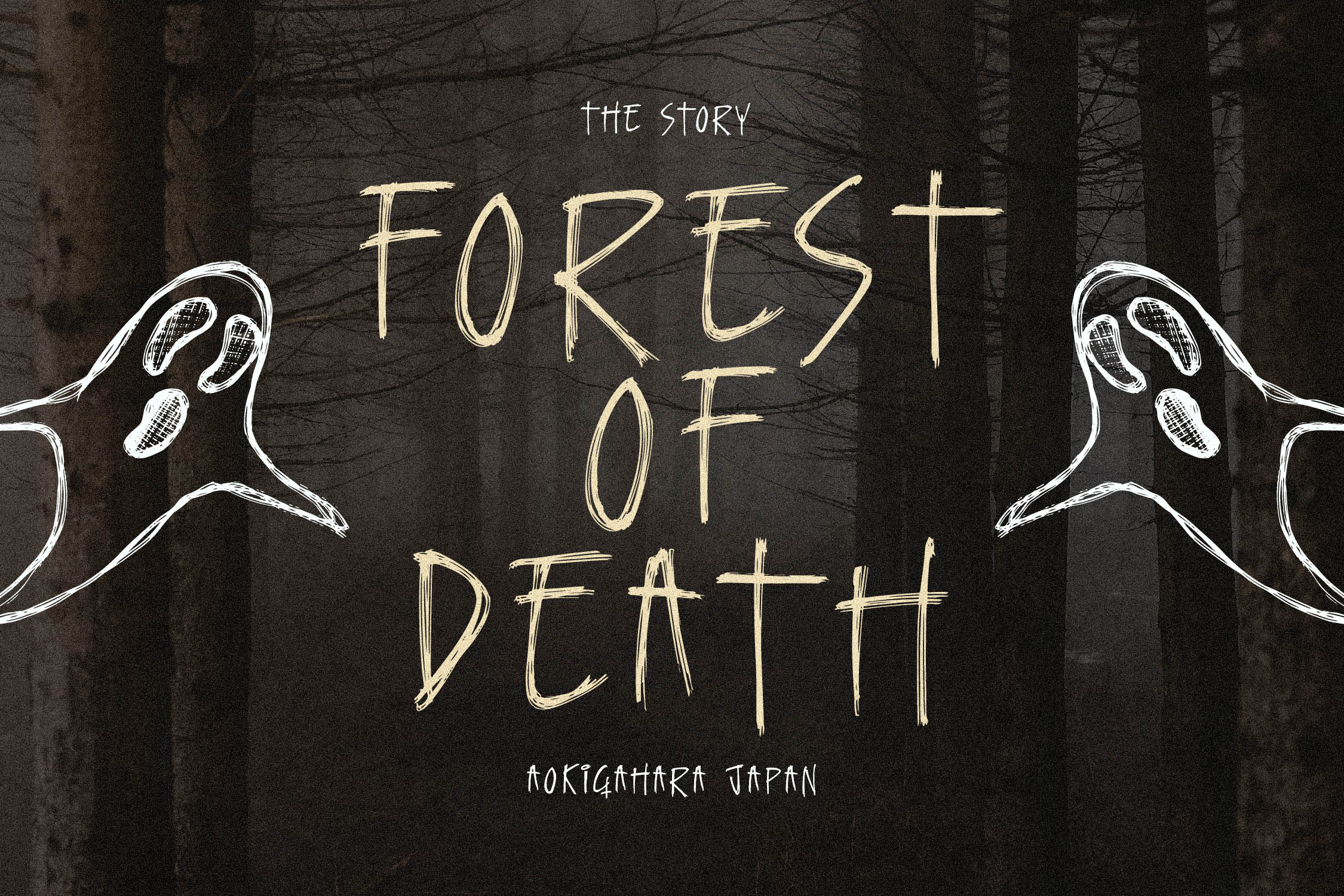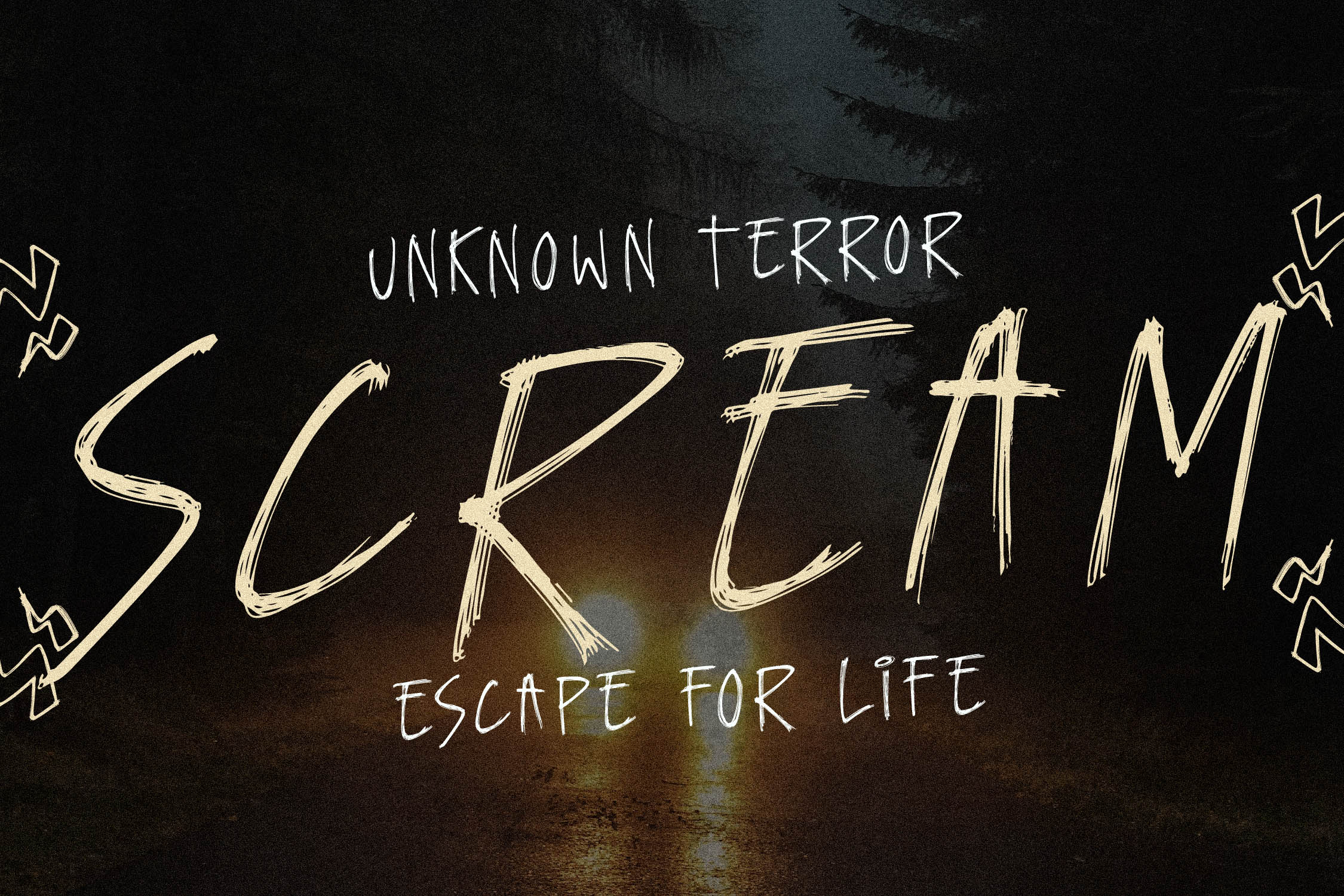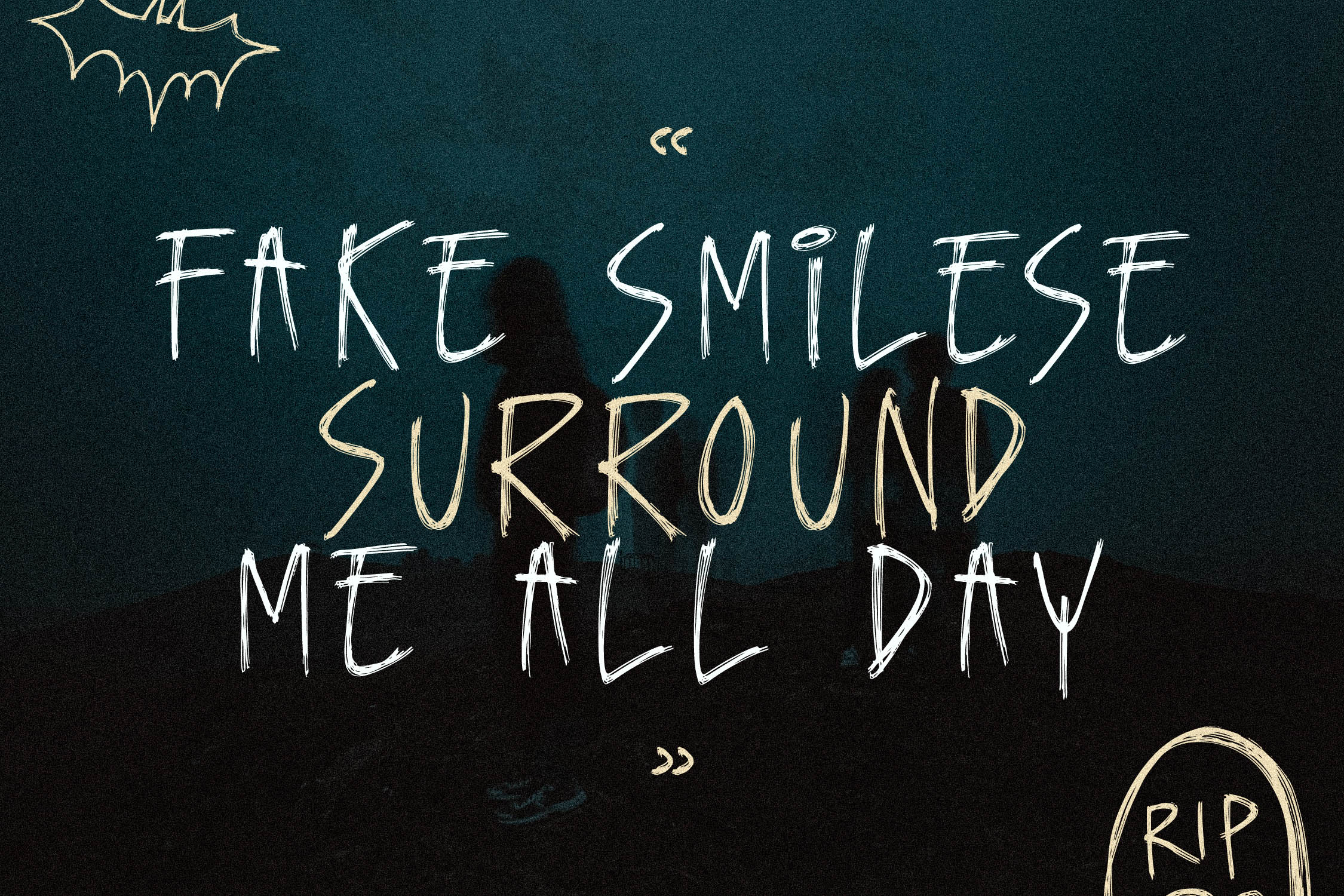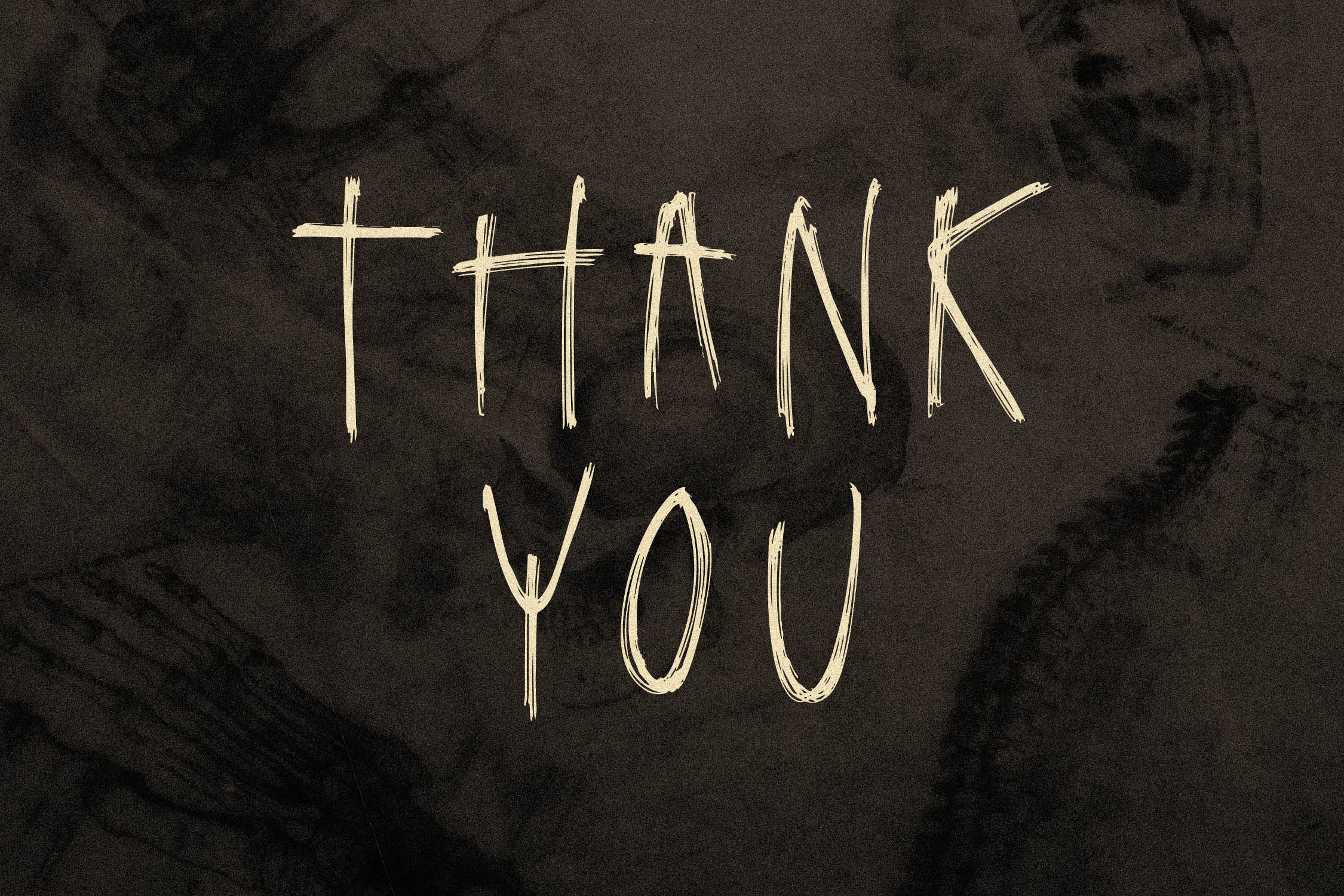
Geraint Brush Font is a spooky display font, suitable for any projects such as: logos, branding projects, homeware designs, product packaging, mugs, quotes, posters, shopping bags, t-shirts, book covers, name card, invitation cards, greeting cards, label, photography, watermark, special events, and all your other lovely projects that need a beautiful script taste.